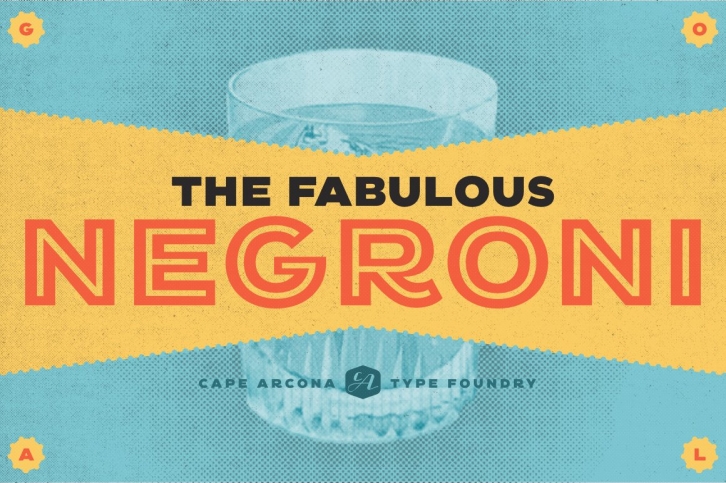
A dinner is not complete without a fine introducing drink. Whatever you dinner will be, CA Negroni – an all caps – is the perfect introduction. Delivered in three flavors, Normal (with Light + Black + Fill), Inline and Round, it can be spiced up using the two stylistic sets included. Versatility is proved by the extensive language support, covering whole Central Europe.
CA Negroni is the well aged and improved version of a typographic classic: a special kind of very solid fonts used for advertising in the early stages of the 20th century. A couple of distinctive details give the type its charming look.